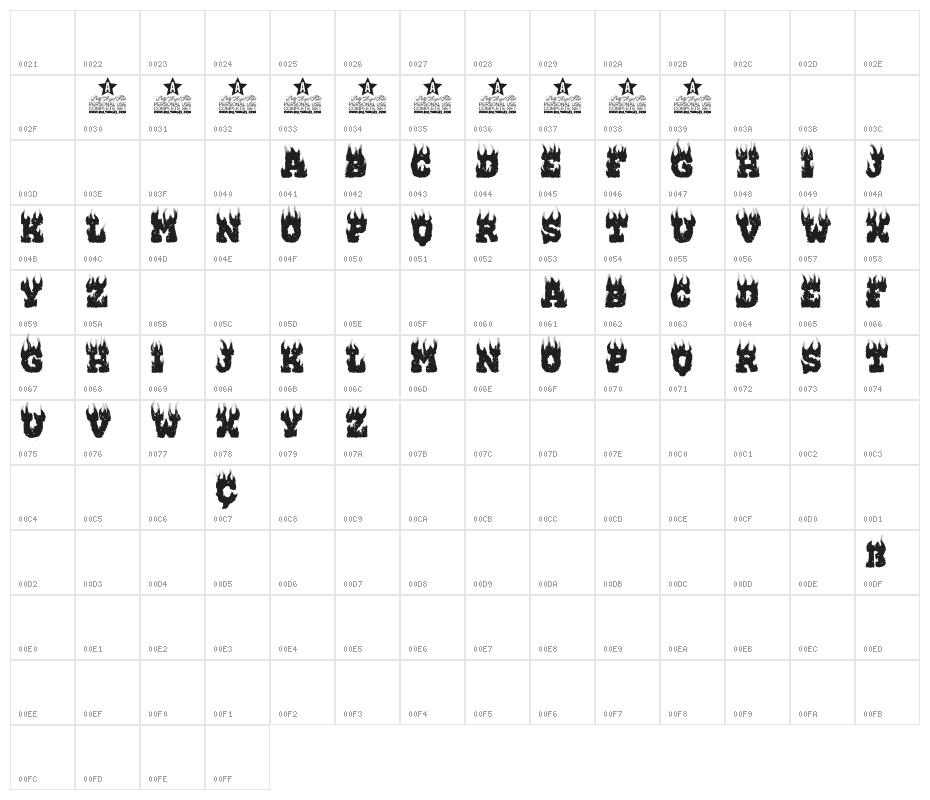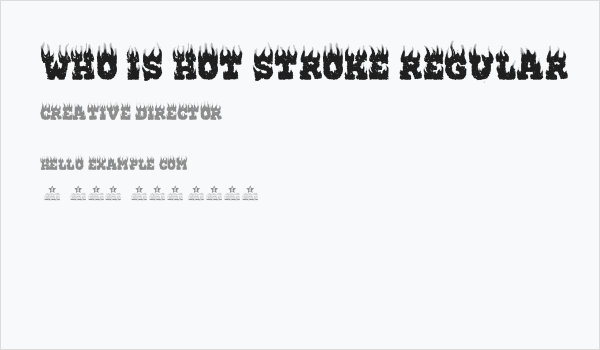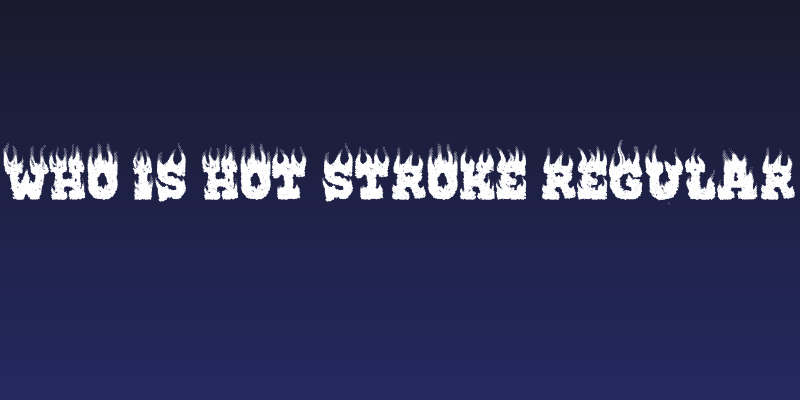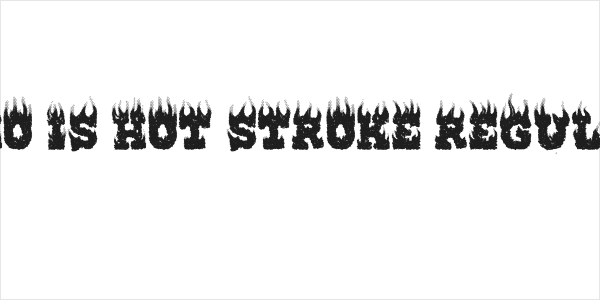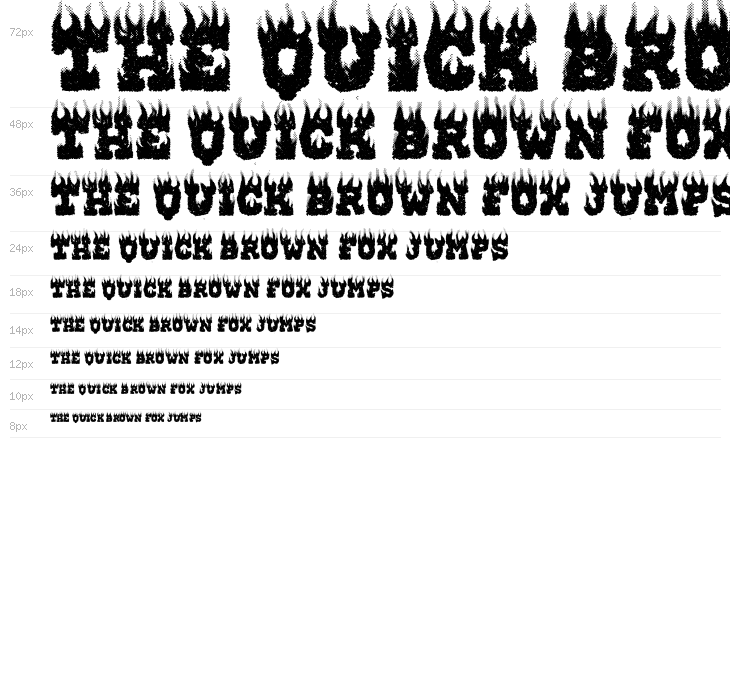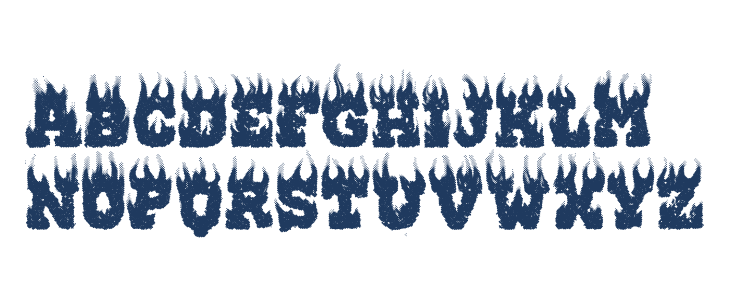
WHO IS HOT STROKE Regular Font
WHO IS HOT STROKE Regular Description
This font features bold, uppercase letters engulfed in stylized flames, creating a dynamic and intense visual impact. The characters are designed with a rough, textured appearance, enhancing the fiery theme. The flames rise from the top of each letter, giving the font a sense of movement and energy. This design is highly decorative and is best suited for projects that require a strong, eye-catching display. The font's unique style makes it ideal for themes related to fire, heat, or intensity.
| Proposed Projects | Ideal for event posters, music album covers, or branding for extreme sports or fire-themed events. |